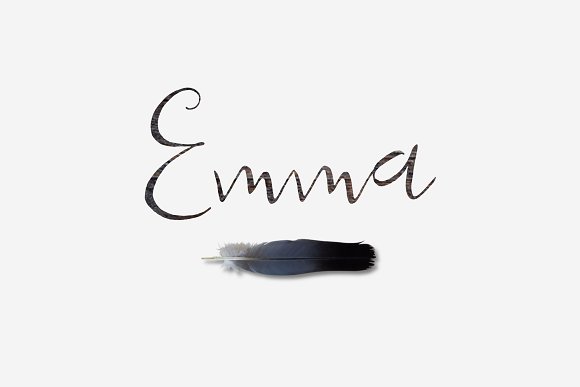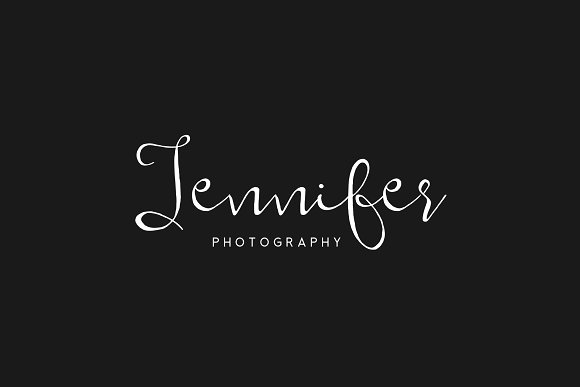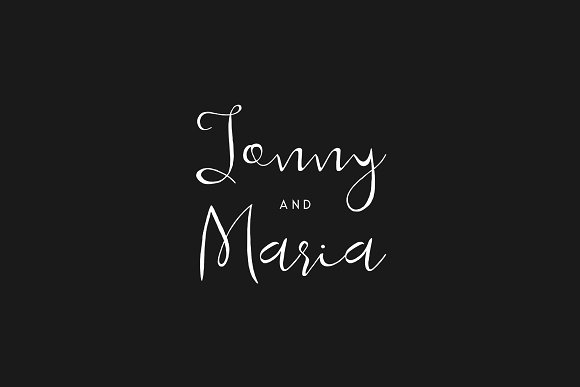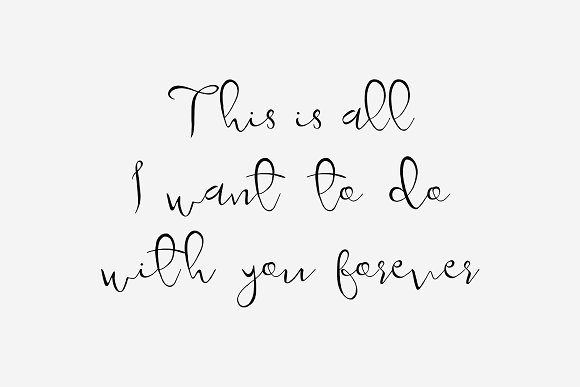
HomeScript FontsEmma Font Script Fonts Emma Font FacebookXPinterestWhatsApp Emma Font Poster 2 Emma Font Poster 3 Emma Font Poster 4 Emma Font Poster 5 About Emma Font Emma is a thin handwritten script font created by Sameeh Media. DOWNLOAD ON CREATIVE FABRICAThis font is sold and delivered by Creative Fabrica. Font Canyon may earn a commission if you buy through this link. People also explored Snow Font Best Daddy Font Greatly Desired Font Alleysha Font The Ampersand Story 2 Font Languedoc Authentic Rhus Font Brownies Font Sheila Dorothy 335 0 TagsEmma Font Previous articleMother Love FontNext articleBudidaya Font LEAVE A REPLY Cancel reply Comment: Please enter your comment! Name:* Please enter your name here Email:* You have entered an incorrect email address! Please enter your email address here Website: Save my name, email, and website in this browser for the next time I comment. Personal Use Free Royal Bengal Tiger Personal Use Free Read more about this font Twisty Girlz Personal Use Free Read more about this font Astercla Personal Use Free Read more about this font Soria Personal Use Free Read more about this font BLOG Elegant Wedding Invitation Fonts – Handwritten & Script Fonts Elegant Wedding Invitation Fonts Your wedding day is one of the most important moments of your life, and every detail matters—including your invitation design. Our... How to Cut Any Font on Cricut: Convert a Font to SVG (Free) Using Fonts in Digital Marketing: Tips to Strengthen Your Brand Identity How to Install and Use Fonts on Windows, macOS, and Web Projects